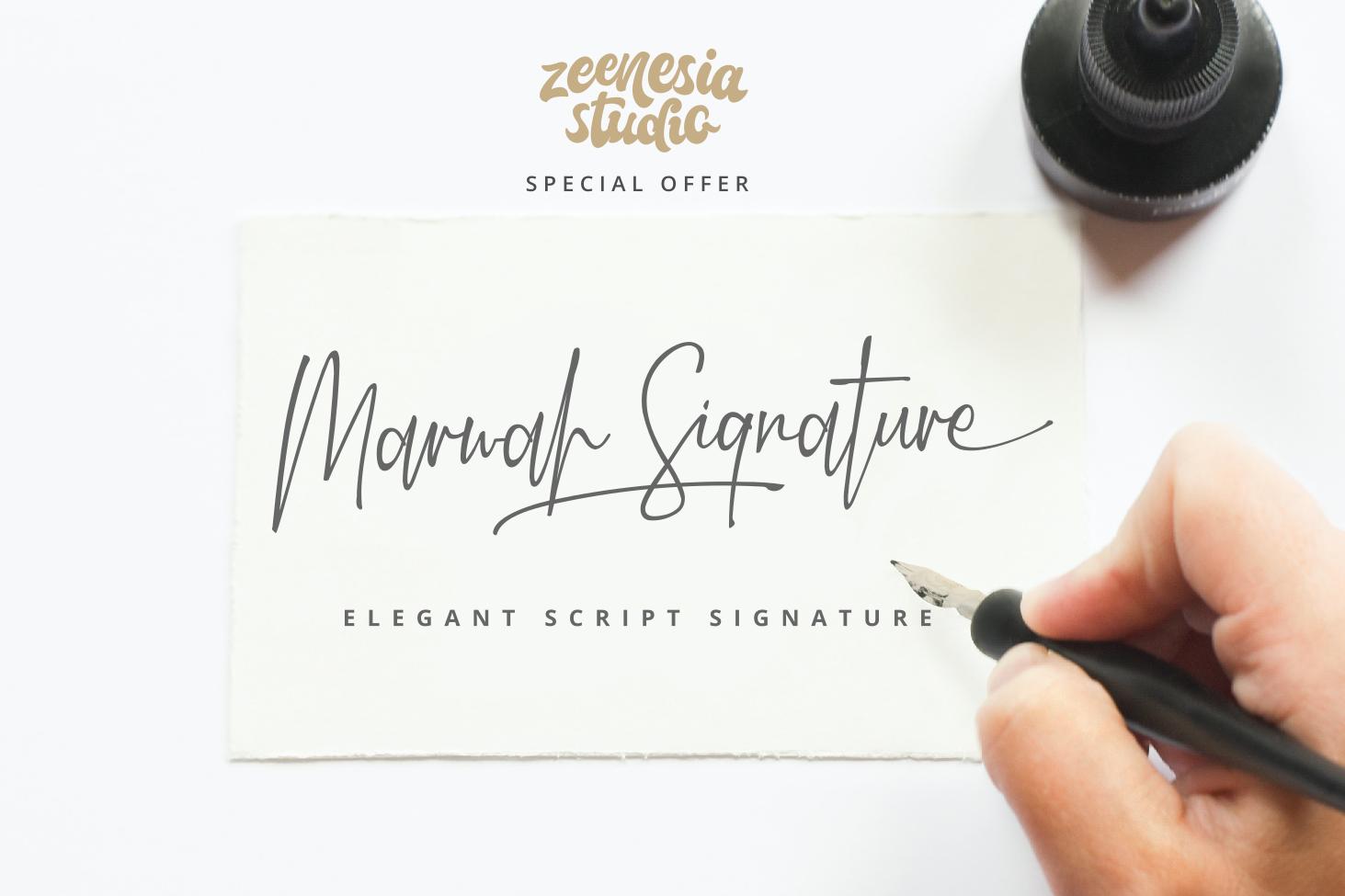
Marwah Signature Font Description
Marwah Signature is a stylish and delicate script font. It has a clean, thin and smooth vibe and it will be a hit for any design that you want to add it to. This font is PUA encoded which means you can access all of the glyphs and swashes with ease!